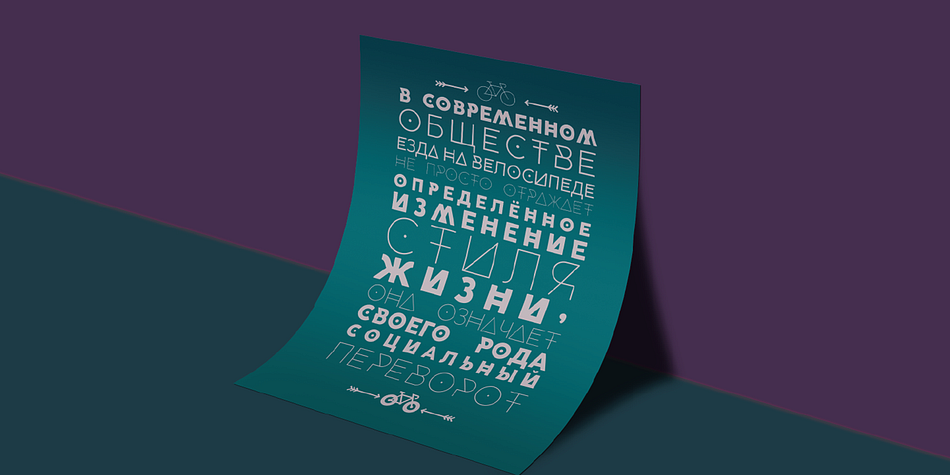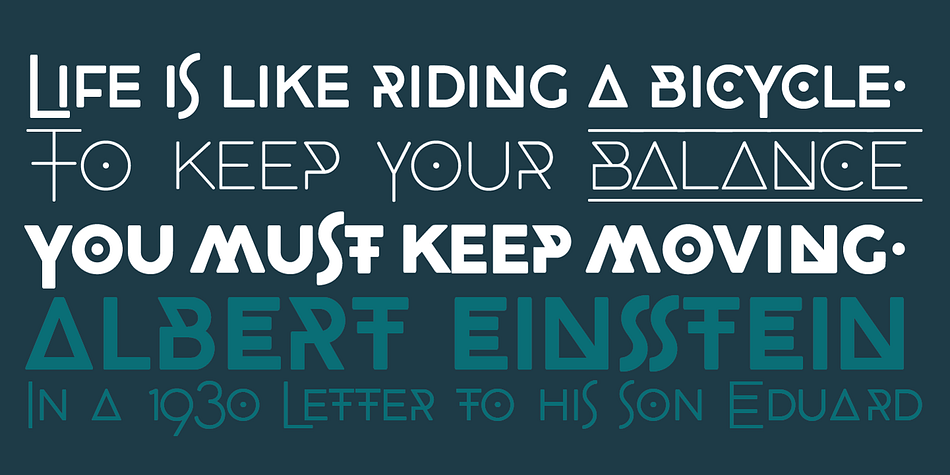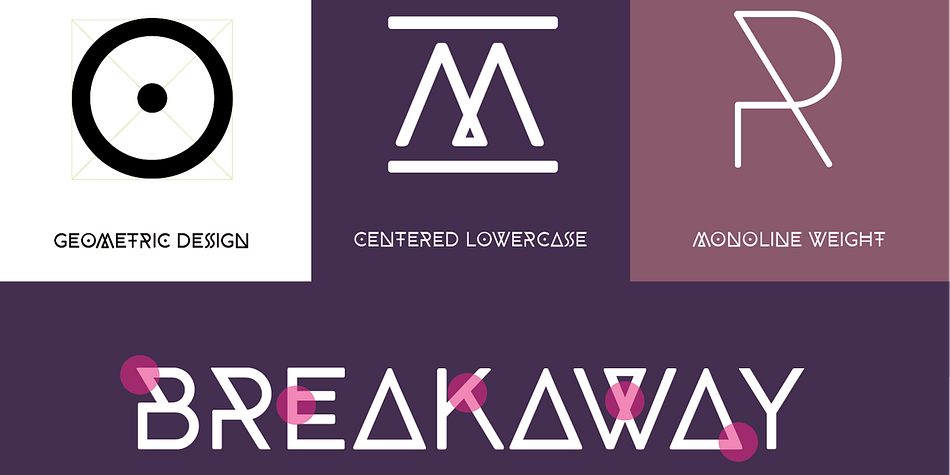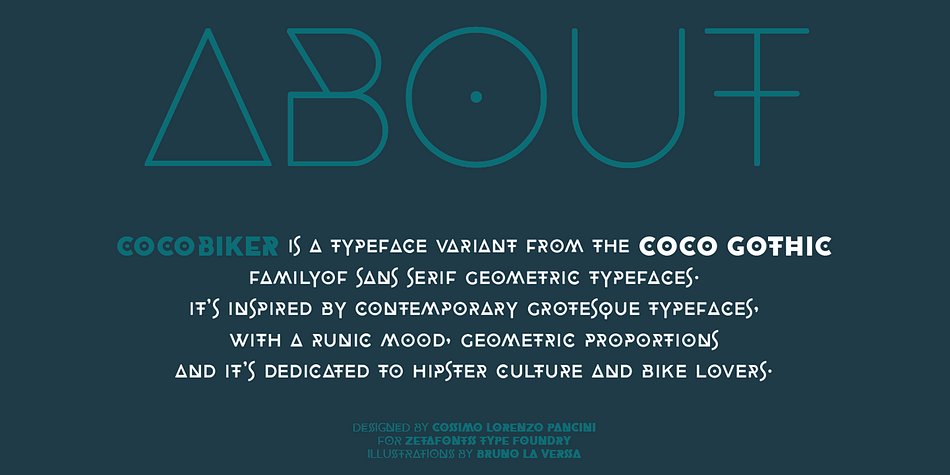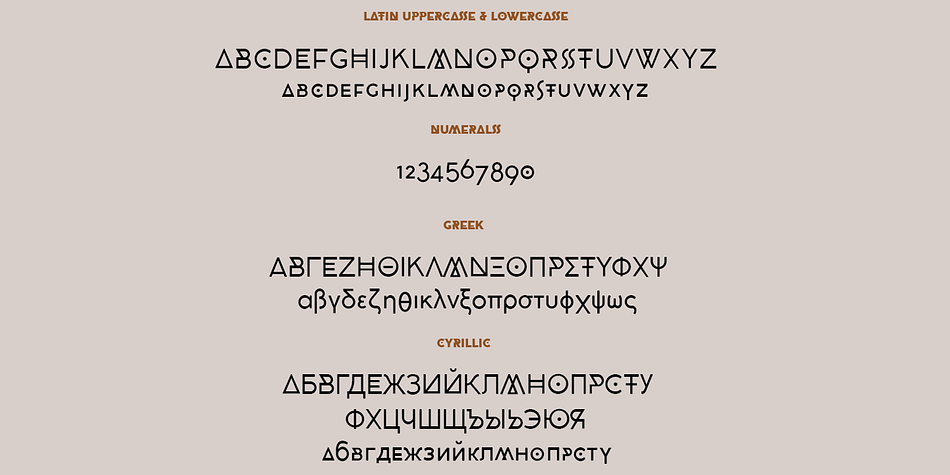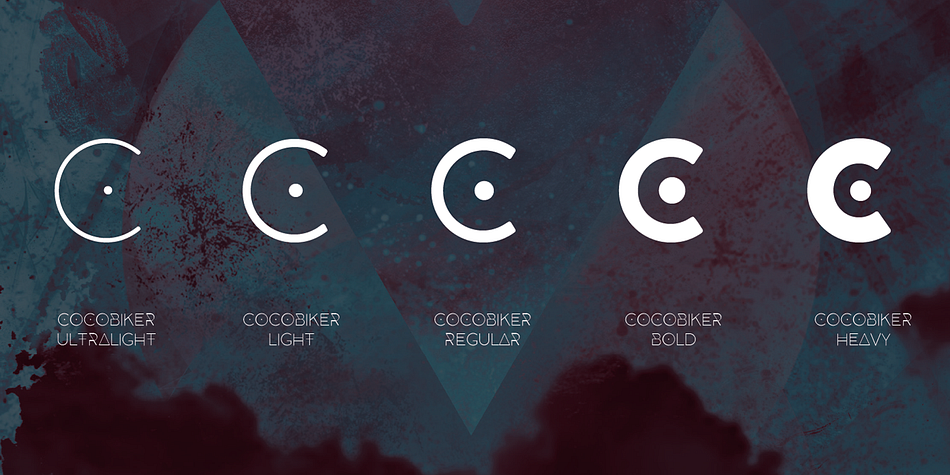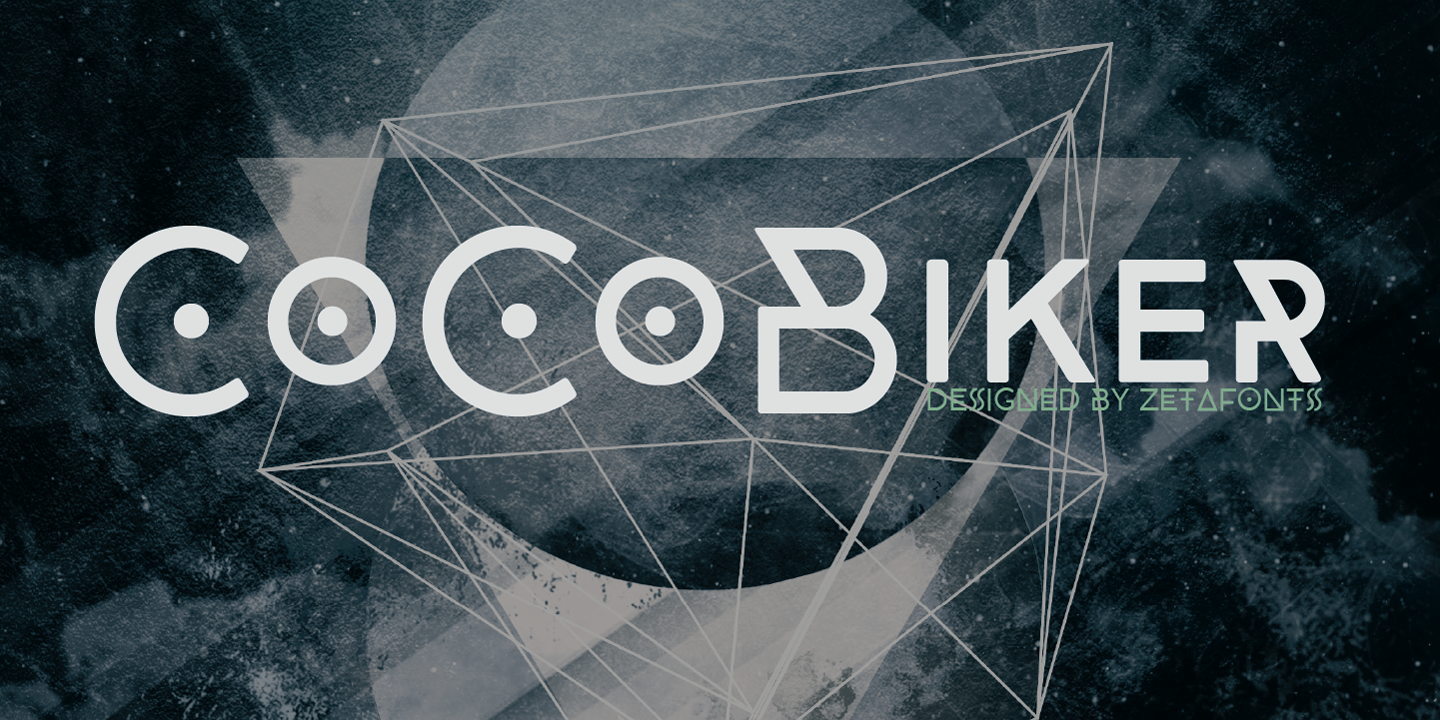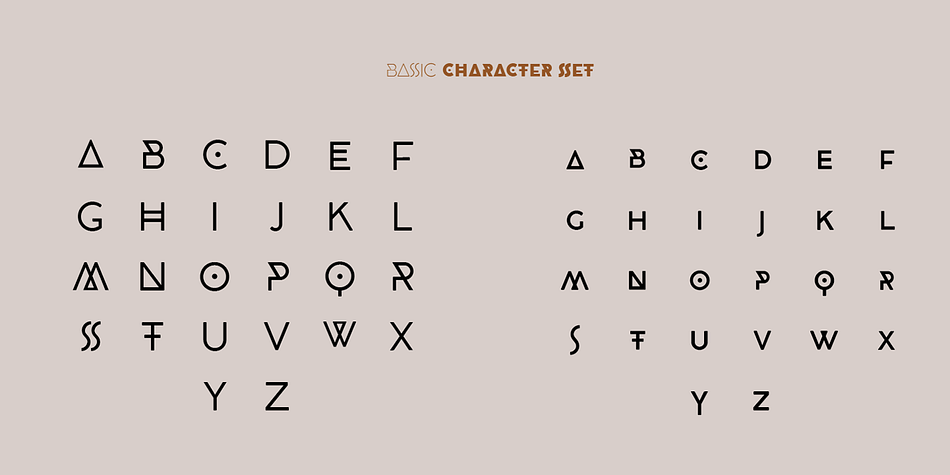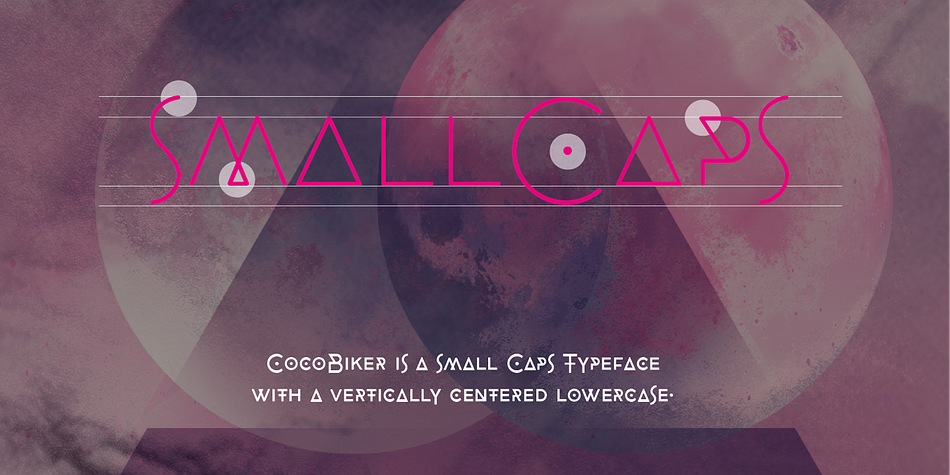
Designed by Cosimo Lorenzo Pancini, Cocobiker is a display font family. This typeface has five styles and was published by Zetafonts.
COCOBIKER is a typeface variant from the COCO GOTHIC family. It’s inspired by contemporary grotesque typefaces, with a runic mood, geometric proportions, and ultra-connected geometry. A sans serif font dedicated to hipster culture and bike lovers, it has been designed as a display Small Caps typeface, but it’s still readable in text blocks. It comes in five weights and features an extended character set with support for European languages, Greek and Cyrillic alphabets, and open type support for ligatures, and special dingbats and symbols.